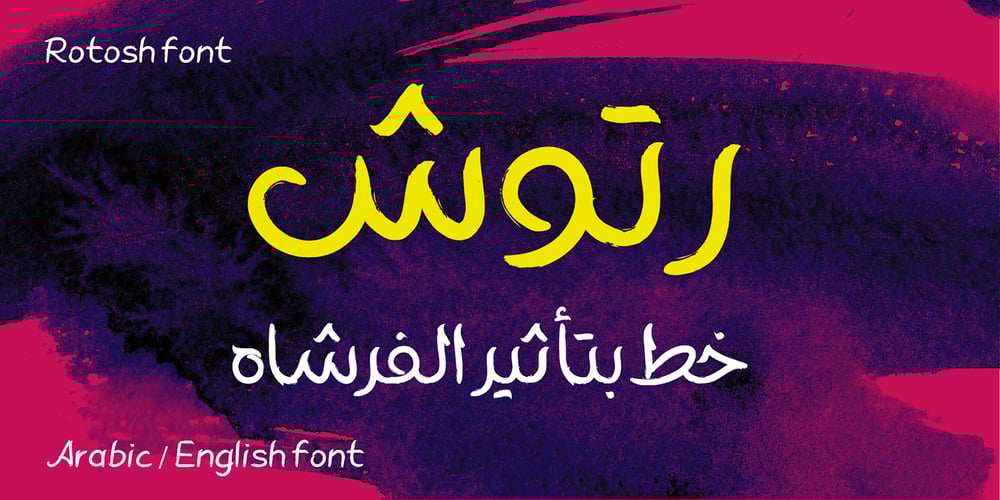
Rotosh BKL Regular Font Family was designed by Bakeel Shams Addin and published by Bakeel Studio. Rotosh BKL Regular contains 1 styles and family package options. Rotosh BKL Regular Font is a modern Arabic and English font designed to meet the needs of a wide variety of users. It contains many characters, signs and languages, including the splintered languages derived from Arabic and English . The font is distinguished by its unique drawing and shape, making it a truly versatile font. The font is also easy to read and legible, making it the perfect choice for any project. With Rotosh BKL Regular, you can be sure that your designs will be truly unique and stand out from the rest.